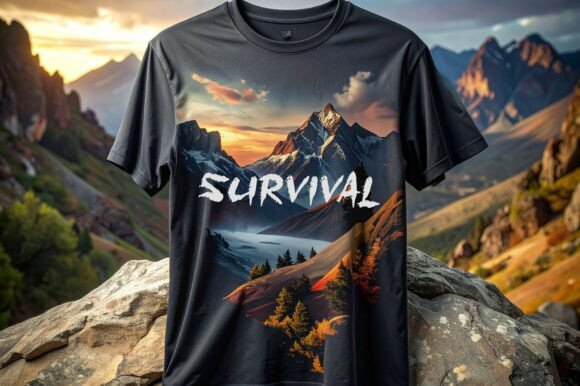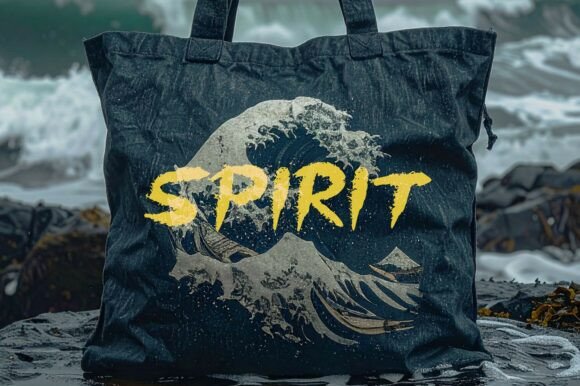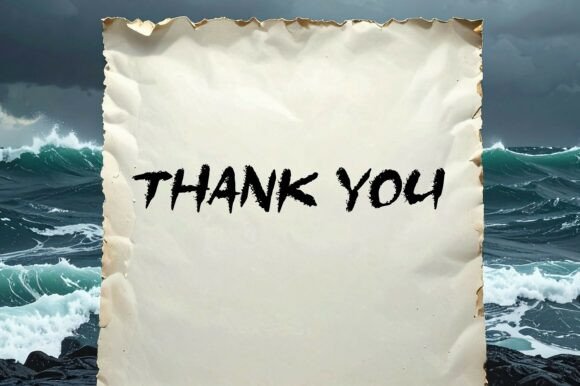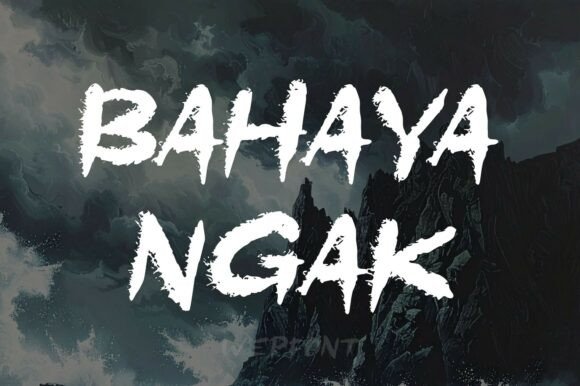
Unleash the Power of “Bahaya Ngak Font”: A Bold and Edgy Decorative Brush Font
In the world of typography, few fonts can match the raw energy and intensity of “Bahaya Ngak”. This decorative brush font is designed to make a statement, with bold, textured strokes that mimic rapid, expressive hand-painting. Its aggressive and impactful style exudes a sense of urgency and intensity, making it perfect for designs that require a powerful, edgy, or rebellious aesthetic.
The Characteristics of “Bahaya Ngak” Font
“Bahaya Ngak” features bold, textured strokes with sharp edges and uneven forms, giving it a unique, hand-crafted feel. The letters convey a feeling of energetic motion and unrefined power, making it an ideal choice for designs that need to grab attention and communicate a forceful, untamed message. The font’s texture and roughness add to its edgy appeal, giving it a distinct personality that sets it apart from more refined and polished fonts.
Ideal Applications for “Bahaya Ngak” Font
“Bahaya Ngak” is exceptionally well-suited for a variety of design applications that require a bold and edgy aesthetic. Some ideal uses for this font include:
- Extreme Sports Branding: The font’s energetic and intense style makes it perfect for branding and marketing materials for extreme sports, such as skateboarding, BMX, or motocross.
- Heavy Metal or Punk Rock Album Covers: The font’s aggressive and rebellious style makes it a great fit for album covers and promotional materials for heavy metal or punk rock bands.
- Horror Movie Titles: The font’s dark and edgy style makes it perfect for horror movie titles and promotional materials, adding to the sense of fear and unease.
- Protest Signs: The font’s bold and defiant style makes it ideal for protest signs and activist materials, conveying a sense of urgency and determination.
- Apparel Designs: The font’s edgy style makes it perfect for apparel designs with a defiant attitude, such as t-shirts, hoodies, or hats.
- Video Game Graphics: The font’s bold and intense style makes it a great fit for video game graphics, adding to the sense of excitement and energy.
- Comic Book Lettering: The font’s bold and expressive style makes it perfect for comic book lettering, adding to the sense of drama and action.
Why Choose “Bahaya Ngak” Font?
There are many reasons why designers and crafters should choose “Bahaya Ngak” font for their projects. Here are just a few:
- Attention-Grabbing: The font’s bold and edgy style is designed to grab attention and make a statement.
- Versatile: The font can be used for a wide range of design applications, from branding and marketing to album covers and apparel designs.
- Unique: The font’s textured and rough style gives it a unique personality that sets it apart from more refined and polished fonts.
- Easy to Read: Despite its bold and edgy style, the font is still easy to read, making it perfect for designs that require a clear and concise message.
Tips for Using “Bahaya Ngak” Font
Here are a few tips for using “Bahaya Ngak” font in your designs:
- Use it Sparingly: Due to its bold and edgy style, it’s best to use “Bahaya Ngak” font sparingly, such as for headings or titles.
- Pair it with a Neutral Font: Pairing “Bahaya Ngak” font with a neutral font can help to balance out its bold style and create a more cohesive look.
- Experiment with Colors: The font’s bold style makes it perfect for experimenting with different colors and textures, adding to its edgy appeal.
“Bahaya Ngak” font is a powerful and edgy decorative brush font that is perfect for designs that require a bold and rebellious aesthetic. Its unique texture and rough style give it a distinct personality that sets it apart from more refined and polished fonts. With its attention-grabbing style and versatile applications, “Bahaya Ngak” font is an excellent choice for designers and crafters looking to add a touch of intensity and energy to their projects.